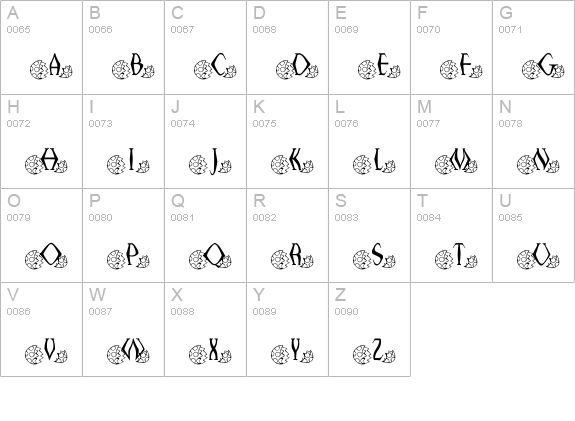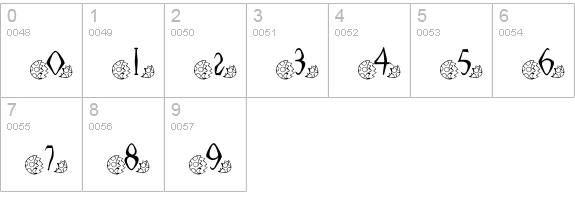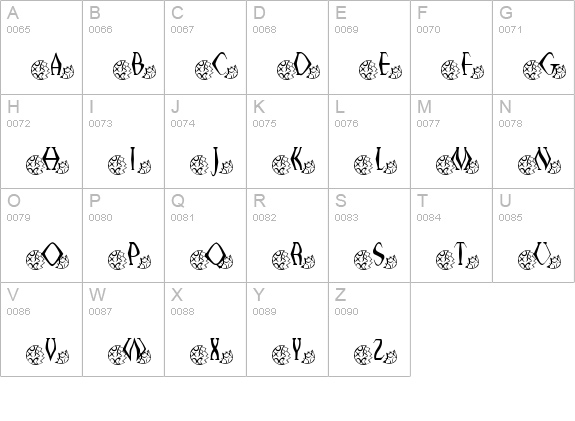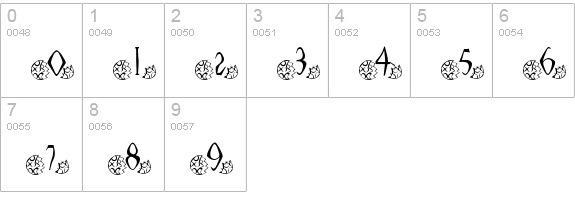
EasterSurprise Font Details
Introducing EasterSurprise font, a whimsical and delightful typeface that encapsulates the essence of Easter. With its playful curves and charming details, this font brings a touch of joy and wonder to any design project. EasterSurprise is perfect for creating eye-catching headlines, greeting cards, invitations, and more. Its unique and intricate letterforms add a sense of excitement and anticipation, truly capturing the spirit of the Easter season. But the best part? EasterSurprise font is completely free! Yes, you read that right. This amazing font is freely available to download at FontsMarket.com. Now you can add a dash of Easter magic to your designs without breaking the bank. Whether you're designing for personal or commercial use, EasterSurprise font is sure to make a lasting impression. Its versatility allows it to shine in a variety of contexts, from children's books and posters to branding materials and social media graphics. So why wait? Embrace the season of renewal and rebirth with EasterSurprise font. Download it for free at FontsMarket.com and start creating captivating designs that will delight and surprise everyone. Let EasterSurprise font bring a touch of magic to your projects today!